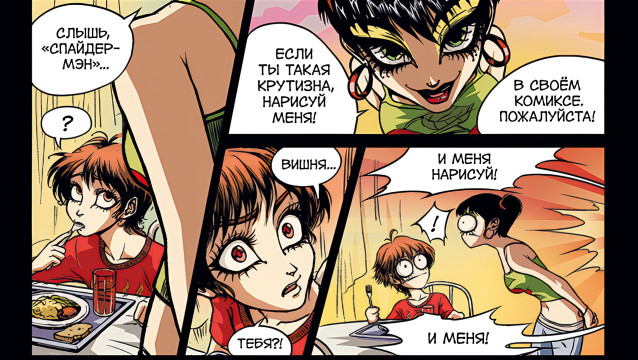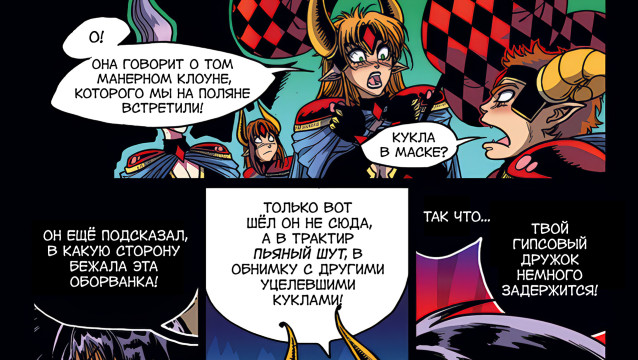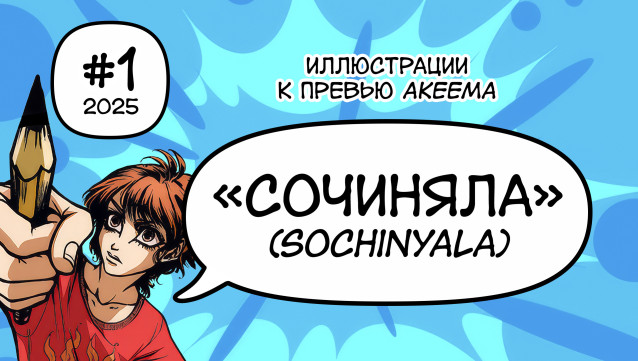
Sochinyala Comic Font
Sochinyala Comic Font is a chunky, comic, and cartoon display font. With its neat and joyful personality, this font will enhance any project you wish to create!
For the design of the font, I used the coolest illustrations from the comic book Scary Masquer by the author Akeema. (Link to it: https://boosty.to/rhombqueen )